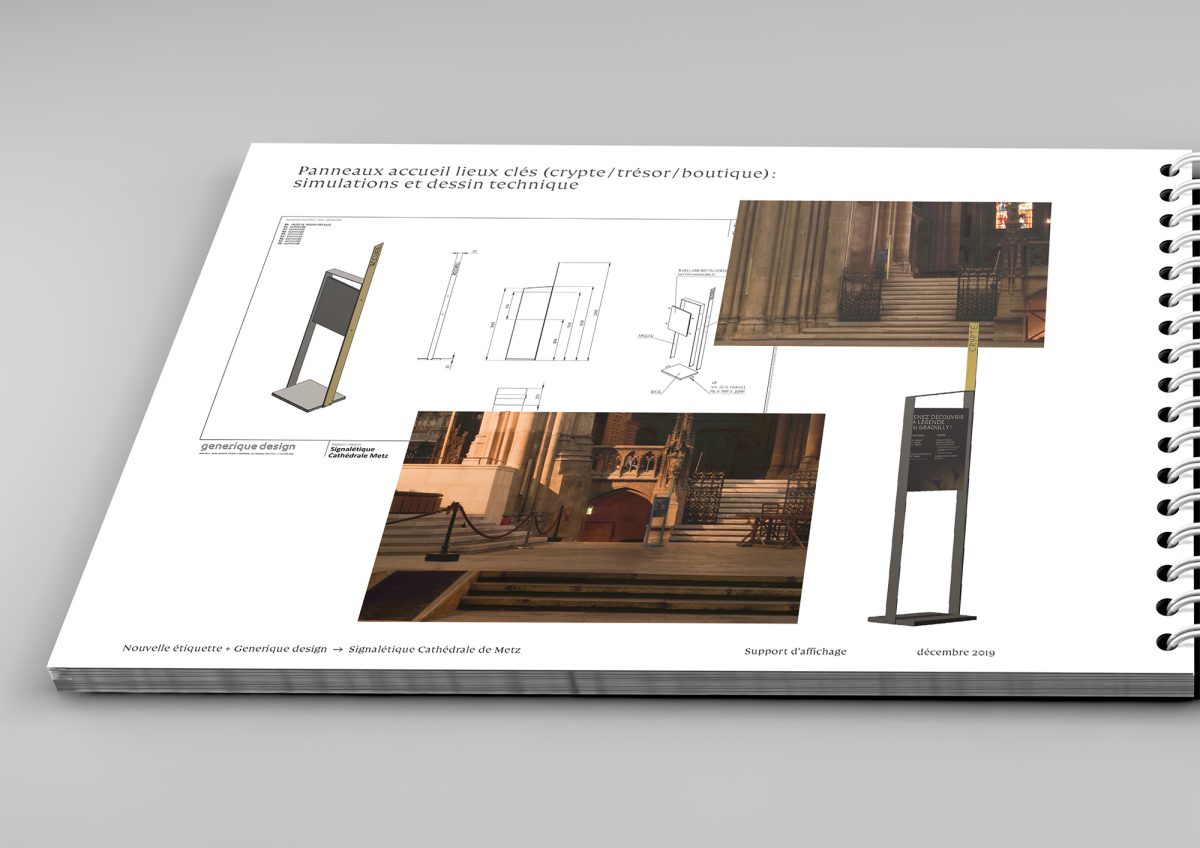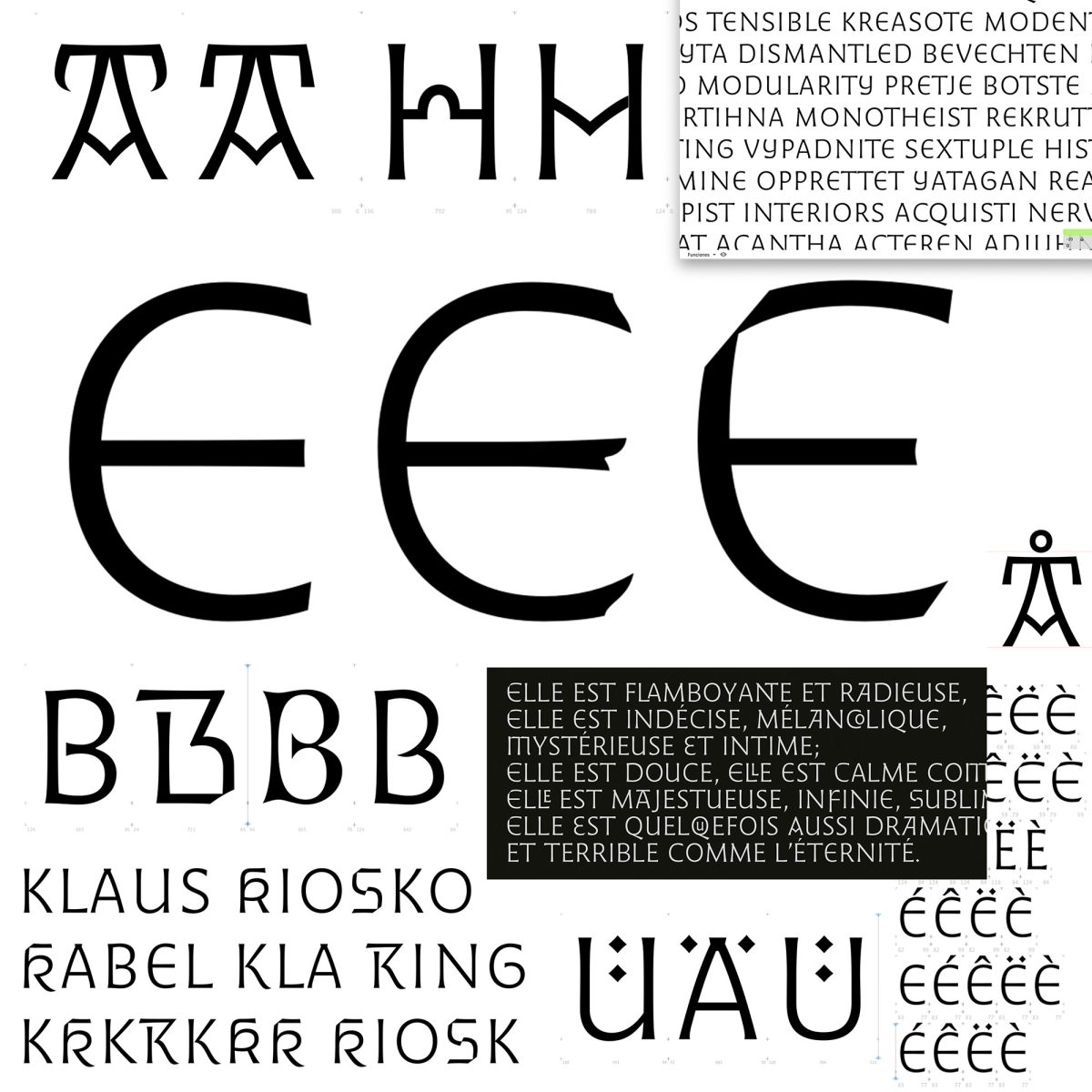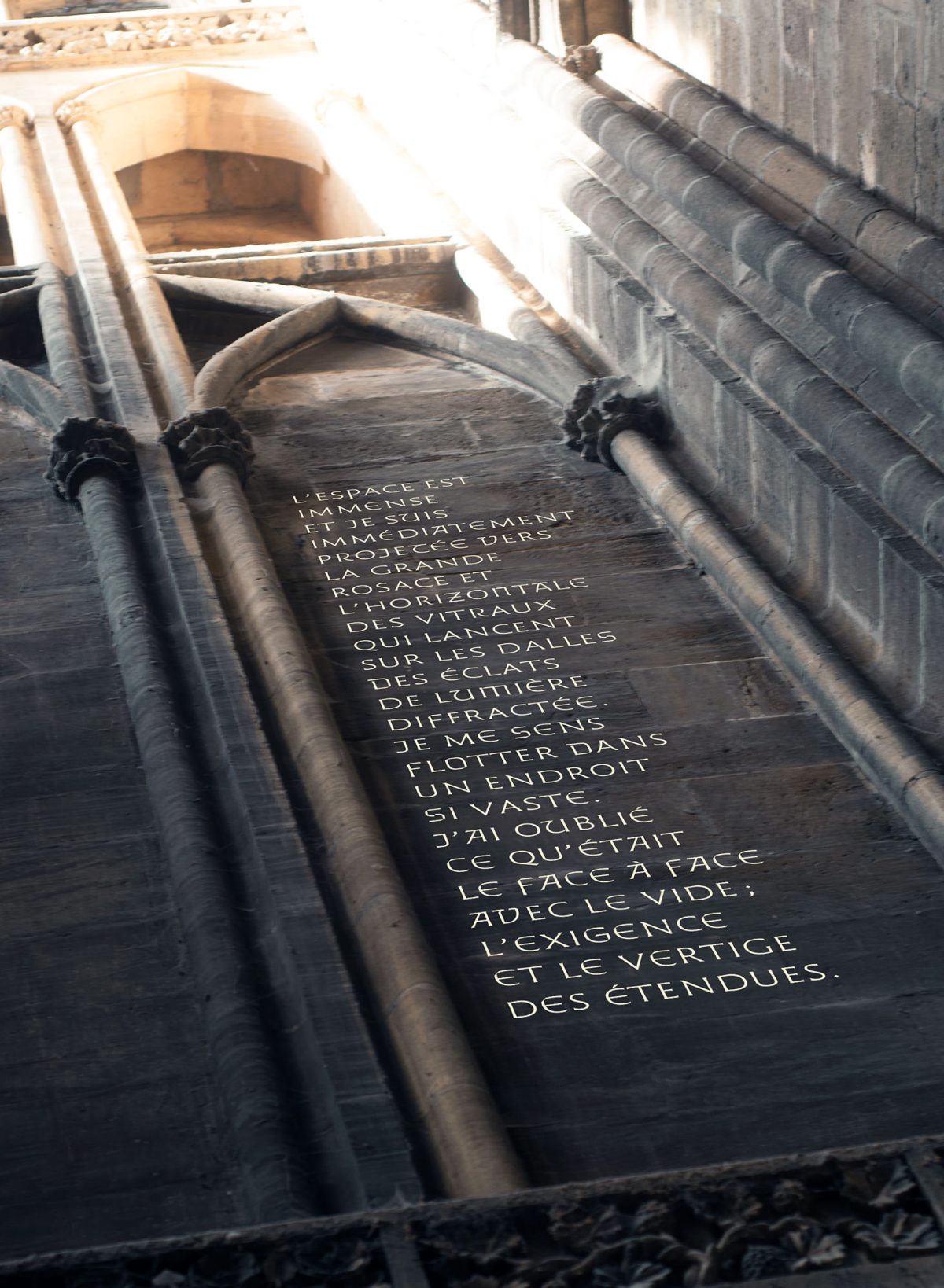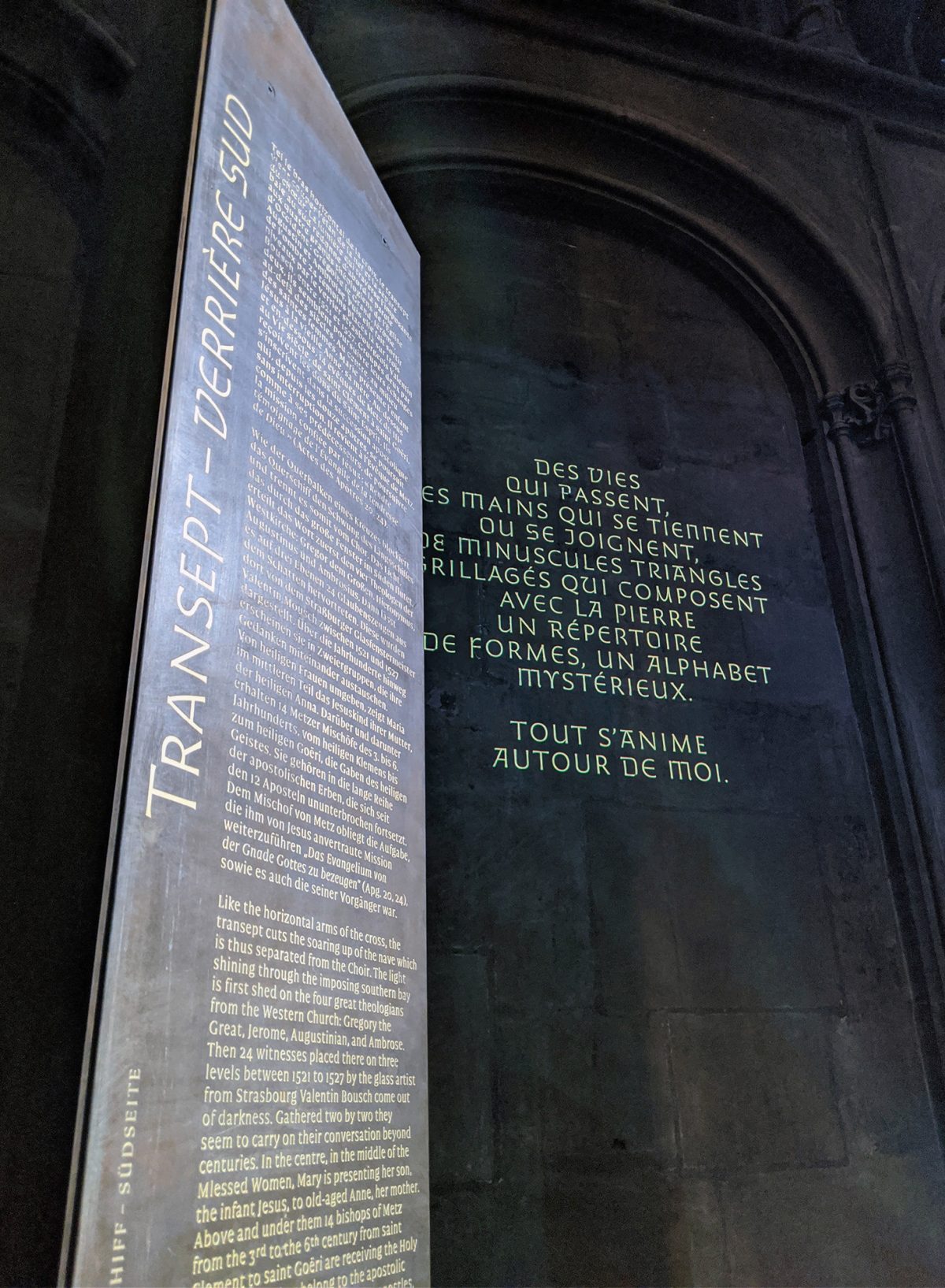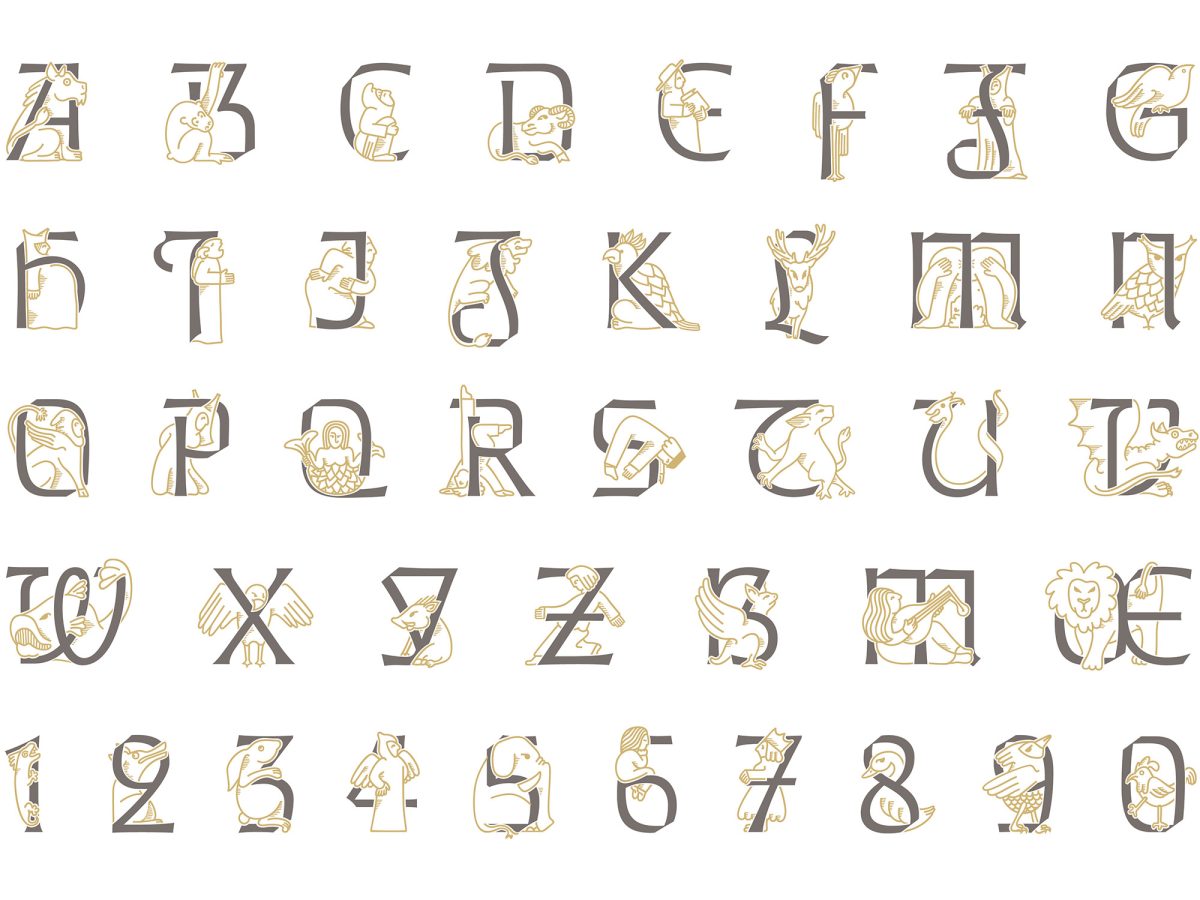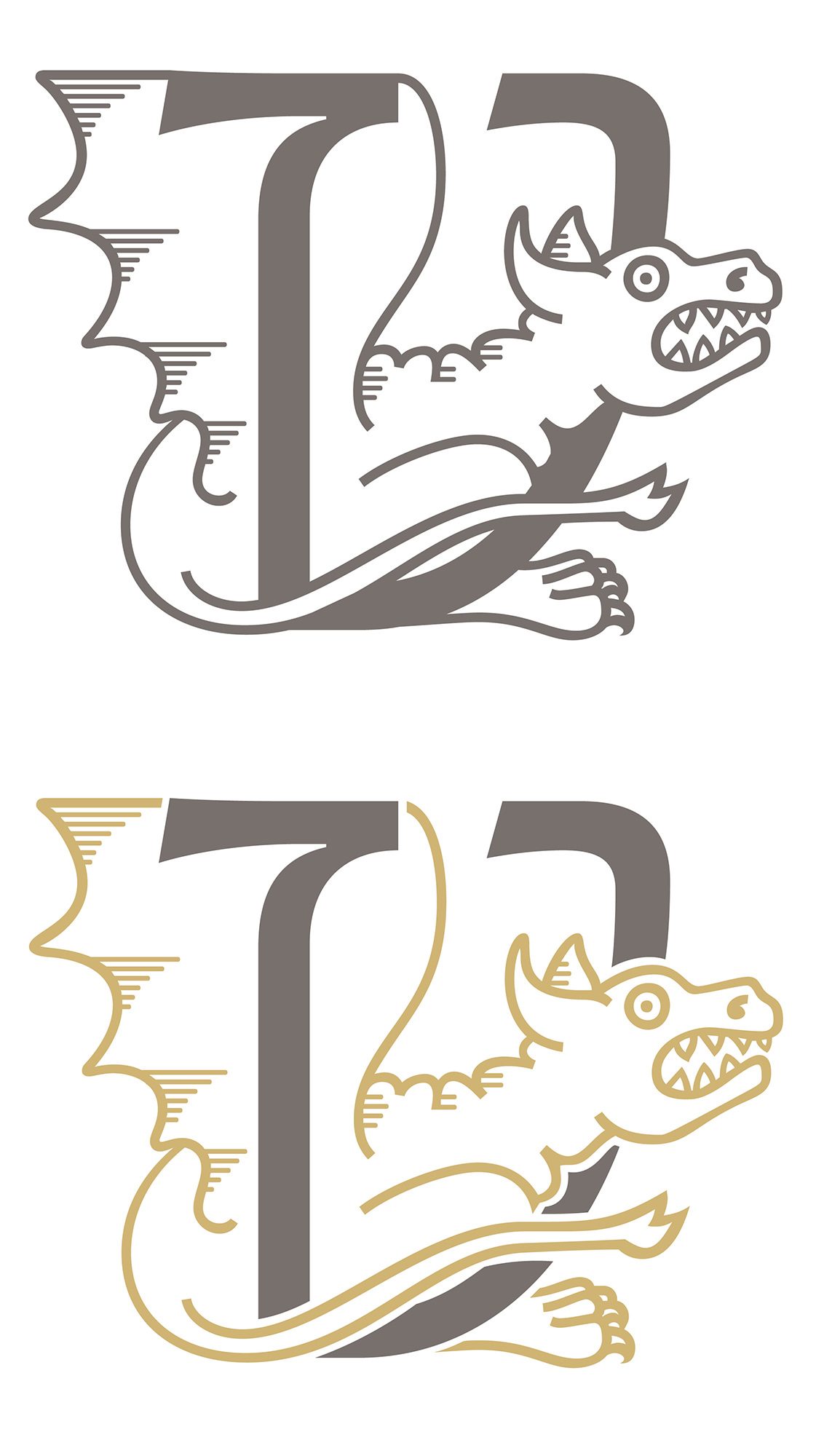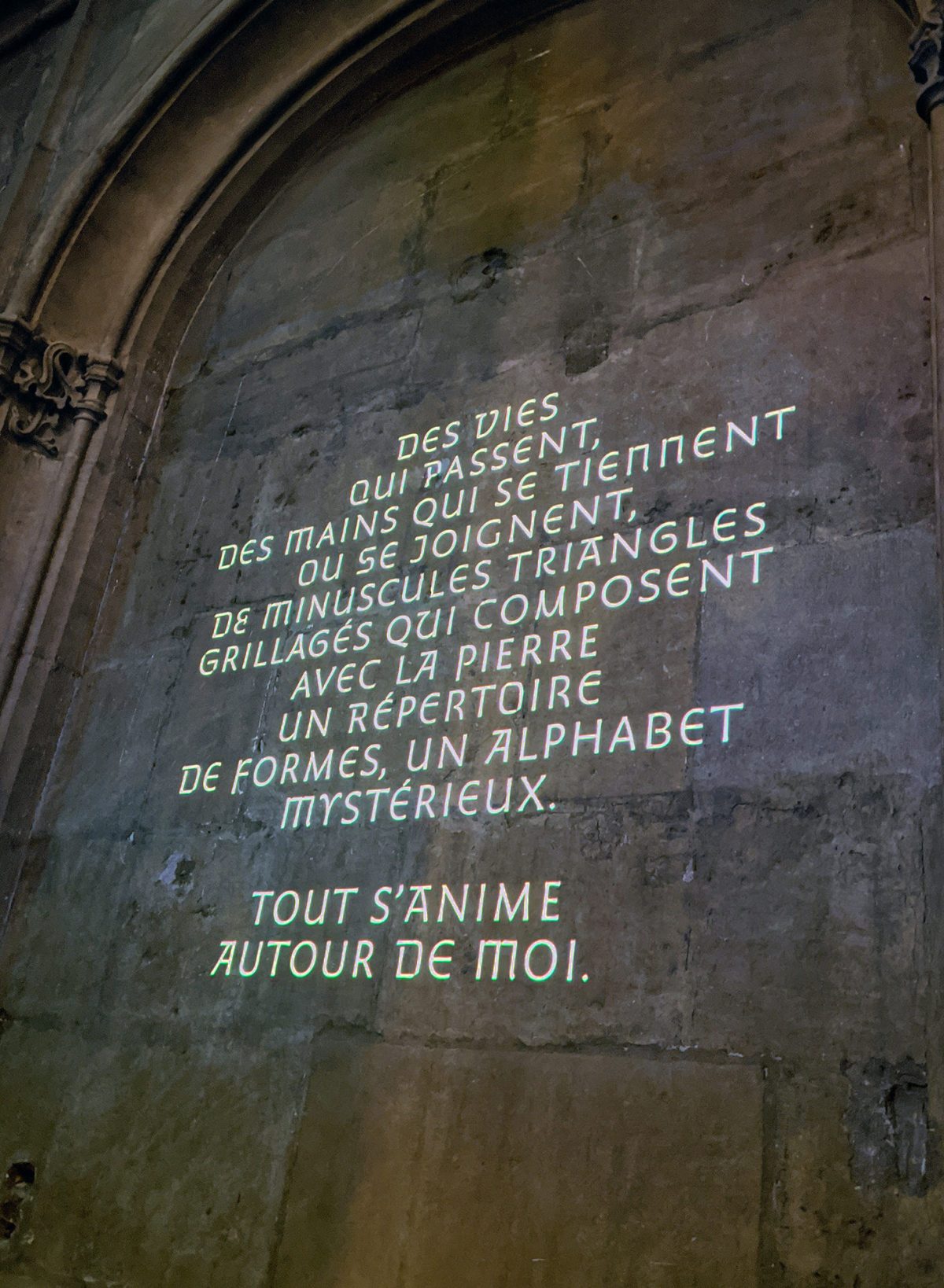
The design of a new typeface for an ancient gothic cathedral
Francis Ramel, member of Nouvelle étiquette, French graphic design bureau based in Metz and in Strasbourg, portrays the challenges and unfolds the design process of this singular project: the design of a bespoke typeface family to be used for the identity and signage system of the cathedral Saint-Étienne de Metz (FR), which turns 800 years old in 2020. This challenging type design task was undertaken jointly by Nouvelle étiquette and the PampaType foundry, which has been a privileged partner of the studio for years.
Photo of the cathedral by Philippe Gisselbrecht. The Yellow stone of « Jaumont », a local quarry, is used in the cathedral and many buildings in town. Its singular color is part of the city’s identity.
Metz is a French city of 120,000 inhabitants situated at the border of Germany, Luxembourg and Belgium.
In 2022 the installation process of this project was completed. You can see some actual photos at the Fonts in Use website.
Type, the basic brick for signage design
The very first element a graphic designer faces when working on a signage project is undoubtedly typography. The selected alphabet must convey a specific formal singularity, be in harmony with the place it will dress, and install a strong identity. At the same time it must be legible in all circumstances, be space saving, and contain enough weight and glyphs to meet all possible situations in contemporary settings. Once installed, a nice signage system constitutes the voice of a building, its tool for addressing people. In this context, the typefaces associated with it must be selected with the greatest care.
Exploring the medieval epigraphy
Bearing this in mind, when the French ministry of Culture asked us to design a signage system for the cathedral Saint-Étienne, we decided to base our work on a series of bespoke typefaces. The inspiration for it was natural. Medieval epigraphy is rich in alphabetical inscriptions. The Gothic period gave rise to numerous messages recorded on stone, intended for the general public. Stained-glass windows, columns and walls are full of typographic signs. Indeed, our typeface design, guided by a strong desire to be in aesthetical osmosis with the place, draw on this enormous wealth to offer its audience a contemporary interpretation of the gothic scriptural tradition.
A tailored patrimonial tool
By choosing to design a specific type system for the cathedral, we created a versatile and complete graphic tool, which can respond to the particular needs of the signage project. The whole final installation — designed with Jakob Lorenz from Générique Design 1 — will consist in a light projected spiritual parcours, accompanied by 17 metallic monoliths displaying engraved texts which will describe the spiritual and artistic heritage of the cathedral. Those parcours will be completed by a few specifically designed panels intended to display temporary information. Finally, a patrimonial space will be installed in an unused chapel of the cathedral. This area will display purely patrimonial information through engraved steel panels and 3D printed models.
Built alongside with the physical and graphical productions of this project, the typefaces are therefore able to respond with unequalled precision and efficiency to its needs. Their design also inscribes the signage project in a temporality close to the one of the cathedral. Indeed, typefaces have the ability to capture the spirit of their time while settling in the long term (think of Garamond, for instance… shapes that have been designed centuries ago are still well perceived and used in our contemporary world). This patrimonial dimension of type design has been identified at the very beginning of our discussions with the project sponsors as a definite asset for this project.
The three custom types: Cathédrale Lumiére, Cathédrale Enluminée, Cathédrale Métal.
After months of hard work, the typefaces are now finished, and will soon be shared with their final users: members of the chapter, volunteers from the cathedral and civil servants from the local delegation of the state. Later this year (2020), the final signage project will be installed in-situ, and the typefaces will be allowed to be used by a very restraint number of people, to bear the artistic, liturgical and patrimonial voice of the cathedral through paper, light and steel.
Cathédrale Lumière, to be projected with light
Cathédrale Lumière is an all caps typeface intended for the composition of all titles in the project. It is the most exuberant character of the system. It is also the most visible marker of the building’s visual identity. Cathédrale Lumière’s design was based on the tecnical constraints of its main mode of diffusion. Within the church, the typeface will be used to display large luminous sentences, projected on the walls using light projectors. These sentences compose the spiritual path which will accompany the visitor as well as underline the architecture of the cathedral. This specificity was incorporated from the start in the design, so that the font behaves finely in these conditions, while also allowing its use in traditional situations such as print.
The typeface was thought to behave as a kind of digital lettering, rather than a static font. Cathédrale Lumière is a flared-serif typeface, with slight contrast, which, thanks to the design of numerous variants of letters and to the Opentype features, can compose texts with good formal diversity.
The process of designing the first of the typefaces, to be projected on the walls, was key to define the dynamic nature of the whole project. Alejandro and Francis were involved in an intensive exchange of ideas and forms through a *drive* space, and discussed more conceptual approaches in successive virtual meetings. This way the first font, Cathédrale Lumière, was rapidly defined from the beginning of the project.